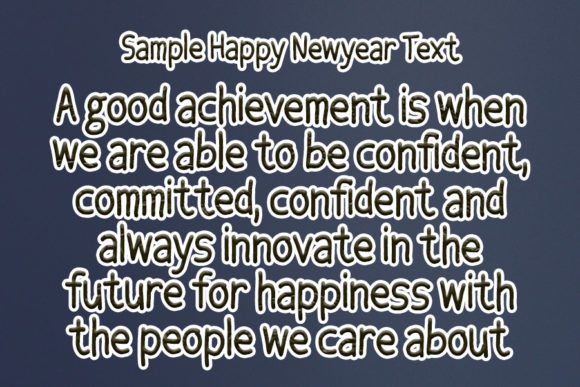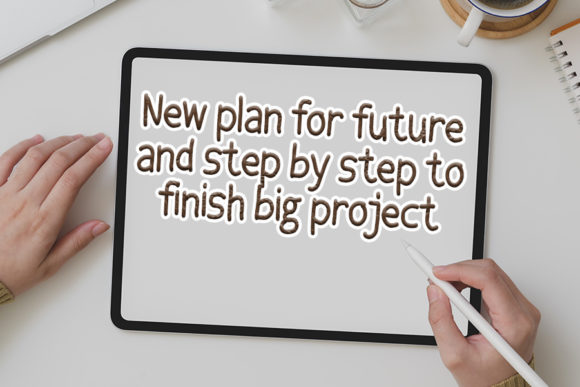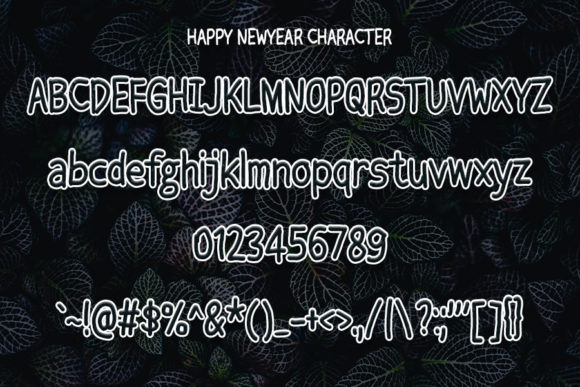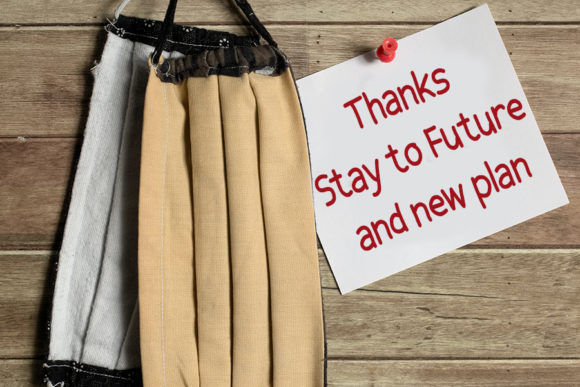
Introducing Happy Newyear Font: The Perfect Blend of Style and Simplicity
As the clock strikes midnight on New Year’s Eve, we bid adieu to the old and welcome the new with open arms. What better way to usher in the fresh vibes of the new year than with a font that’s just as stylish and modern? Say hello to Happy Newyear Font, a simple yet trendy display font that’s perfect for a variety of creative projects.
What Makes Happy Newyear Font Stand Out?
Happy Newyear Font boasts a unique blend of simplicity and trendiness, making it an ideal choice for designers, crafters, and digital artists. Its clean lines, elegant curves, and carefully crafted letterforms make it a versatile font suitable for a wide range of applications. Whether you’re working on a digital design project, creating handmade crafts, or designing presentations and greeting cards, Happy Newyear Font is the perfect companion.
Key Features of Happy Newyear Font
- Simple and Neat Design: Happy Newyear Font features a minimalist design that’s easy on the eyes. Its simplicity makes it highly legible, even at smaller font sizes.
- Trendy and Modern: The font’s trendy and modern aesthetic ensures that your designs look fresh and up-to-date. It’s perfect for creating eye-catching headlines, titles, and captions.
- Versatile: Happy Newyear Font is incredibly versatile and can be used for a variety of projects, including crafting, digital designing, presentations, greeting cards, and more.
- Easily Readable: The font’s clear and readable design makes it perfect for body text, headings, and titles.
Use Cases for Happy Newyear Font
Happy Newyear Font is an excellent addition to any designer’s or crafter’s toolkit. Here are some use cases where this font truly shines:
- Crafting: Use Happy Newyear Font to add a personal touch to your handmade crafts, such as scrapbooking, journaling, and card making.
- Digital Designing: The font is perfect for creating social media graphics, blog posts, and website headers that require a modern and stylish touch.
- Presentations: Add a professional and modern flair to your presentations with Happy Newyear Font.
- Greeting Cards: Create beautiful and eye-catching greeting cards for special occasions, including New Year’s Eve, birthdays, and holidays.
Tips for Using Happy Newyear Font
To get the most out of Happy Newyear Font, here are some tips to keep in mind:
- Experiment with Font Sizes: Happy Newyear Font looks great at various font sizes. Experiment with different sizes to find the perfect fit for your project.
- Pair with Other Fonts: Combine Happy Newyear Font with other fonts to create a unique and visually appealing typography.
- Use in Combination with Colors: The font looks great in various colors. Experiment with different color combinations to find the perfect match for your project.
Happy Newyear Font is a simple yet stylish display font that’s perfect for designers, crafters, and digital artists. Its versatility, readability, and trendy aesthetic make it an excellent choice for a wide range of creative projects. Whether you’re looking to add a modern touch to your crafts, digital designs, or presentations, Happy Newyear Font is the perfect companion. So why wait? Download Happy Newyear Font today and start creating stunning designs that usher in the fresh vibes of the new year!